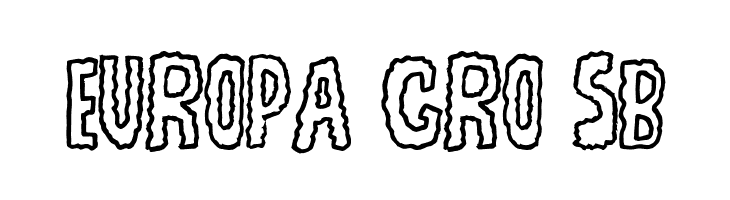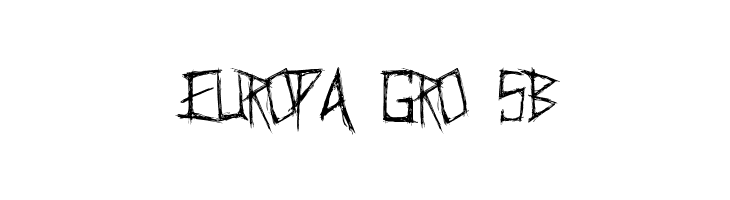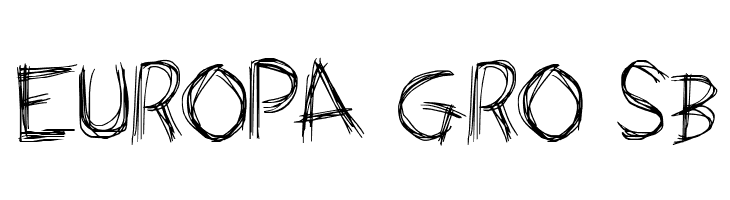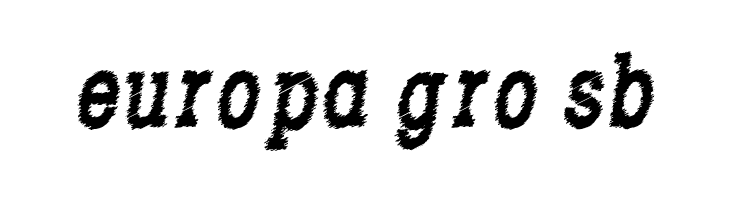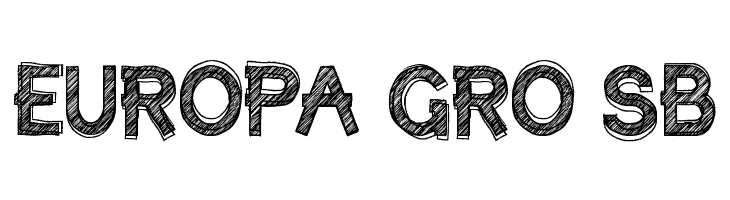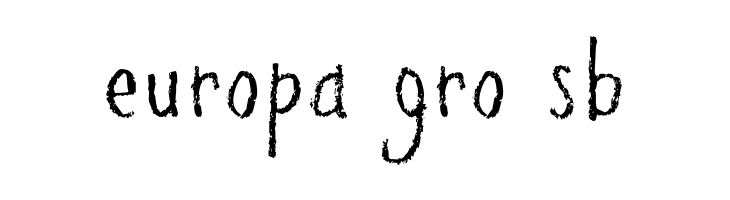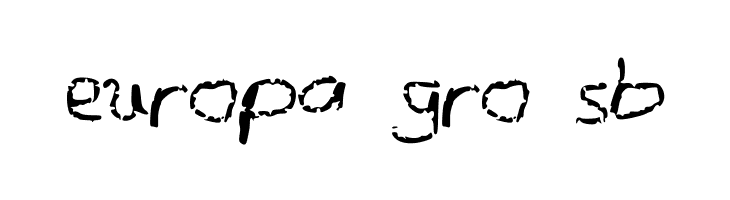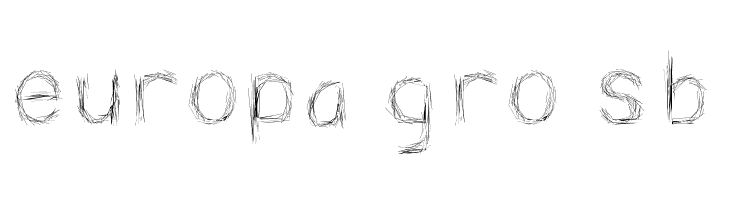
A playful, hand-drawn font with a wavy, outlined style.
A chaotic, distressed font with jagged, irregular strokes and a rebellious style.
A playful, sketch-like font with bold, jagged strokes.
A bold, condensed font with a textured, brush-like appearance.
A sketchy, hand-drawn font with a playful and artistic style.
A textured, hand-drawn font with a playful, informal style.
A bold, sketch-style font with diagonal hatching for a textured look.
A playful, hand-drawn font with a quirky and whimsical style.
A playful, crayon-like font with a hand-drawn, textured appearance.
A sketch-like, hand-drawn font with dynamic, textured strokes.